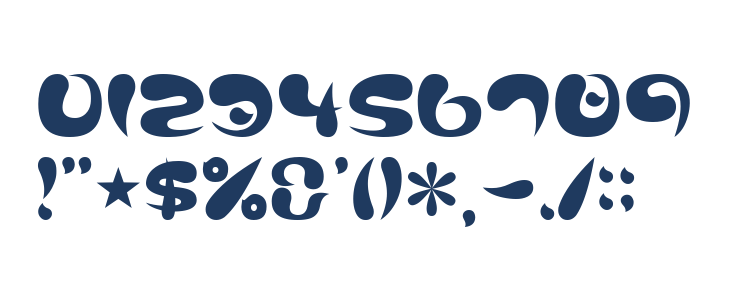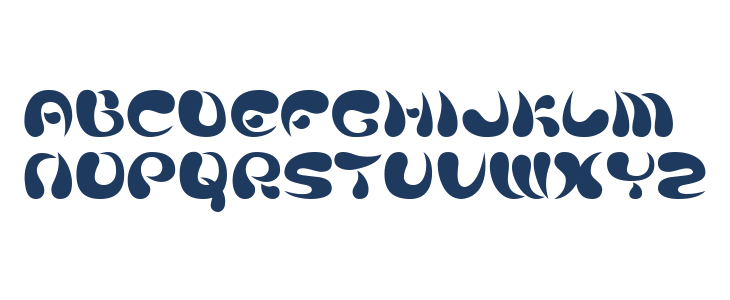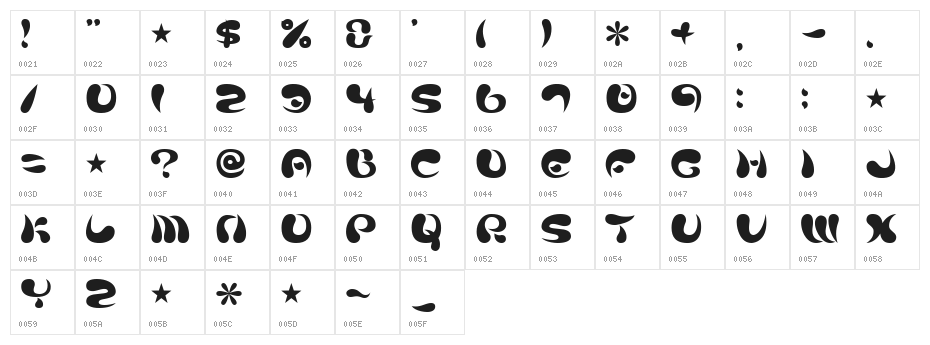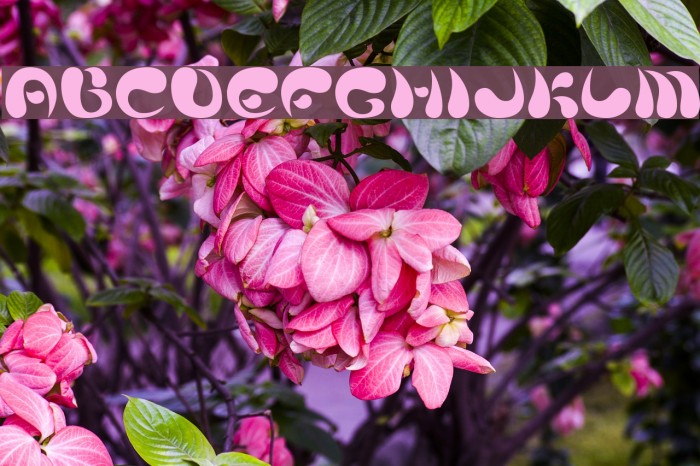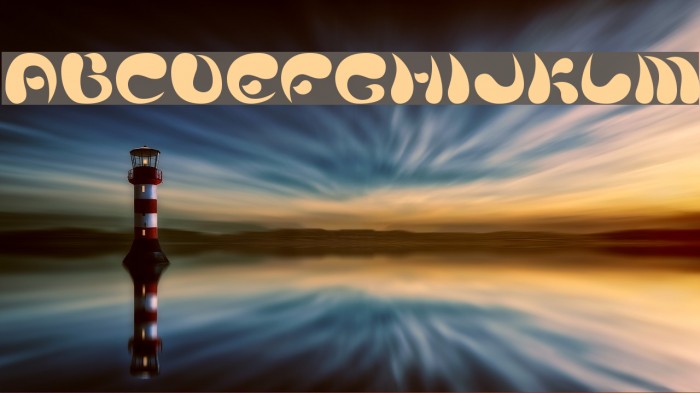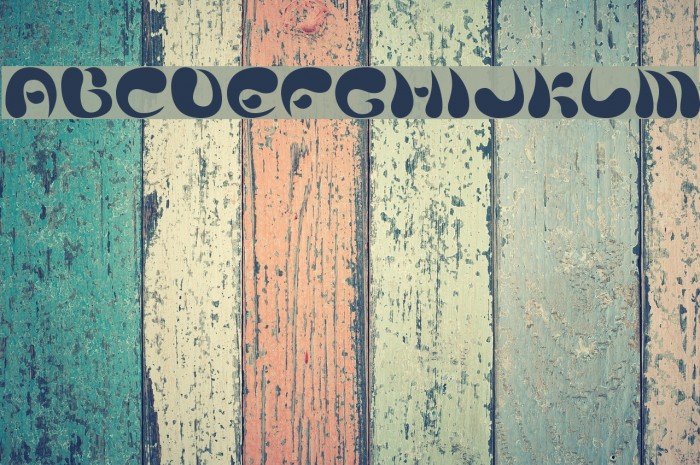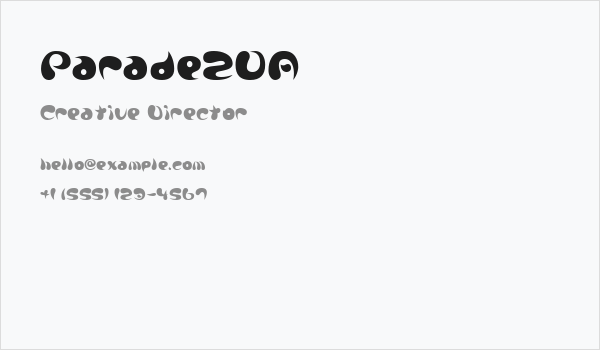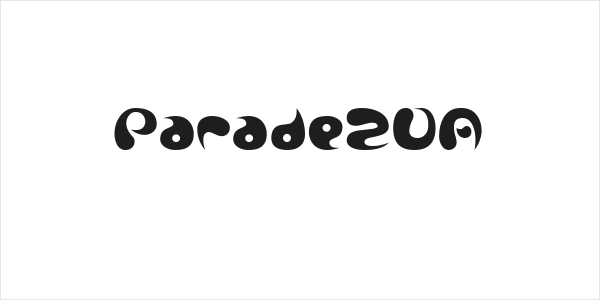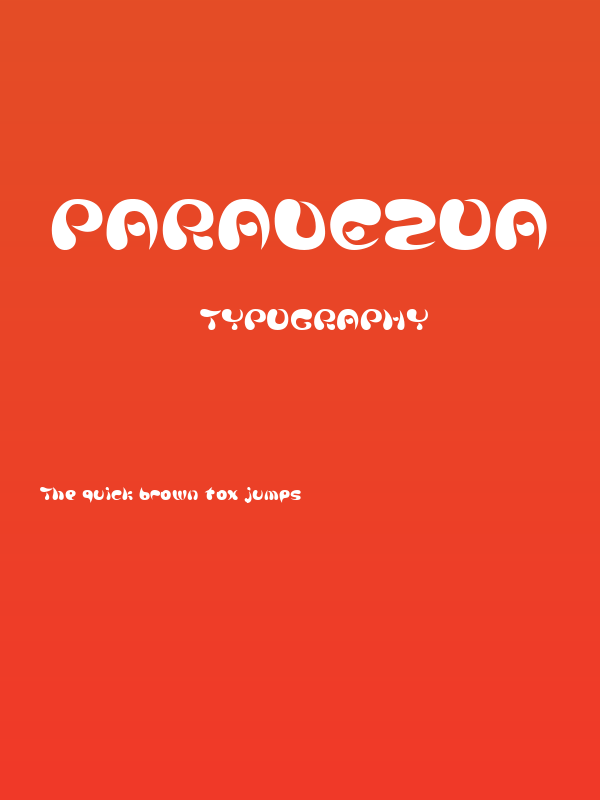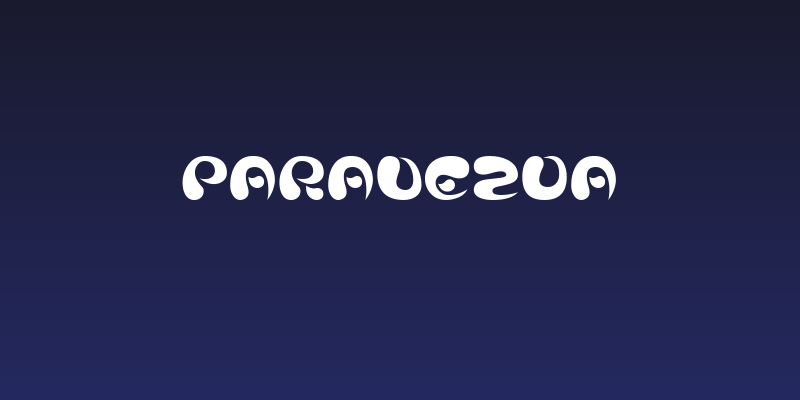
Parade20A Font
Parade20A Description
This font features a bold and playful design with a unique, organic flow. Each character is crafted with a whimsical touch, incorporating curves and swirls that give it a lively and dynamic appearance. The letters have a substantial weight, making them stand out prominently. The style is reminiscent of retro and psychedelic aesthetics, with a modern twist. The characters are well-spaced, providing a balanced and harmonious look. This font is perfect for projects that aim to convey a sense of fun, creativity, and boldness. Its distinctive style makes it suitable for eye-catching designs.
| Proposed Projects | Ideal for posters, album covers, branding, and any creative project that requires a bold statement. |